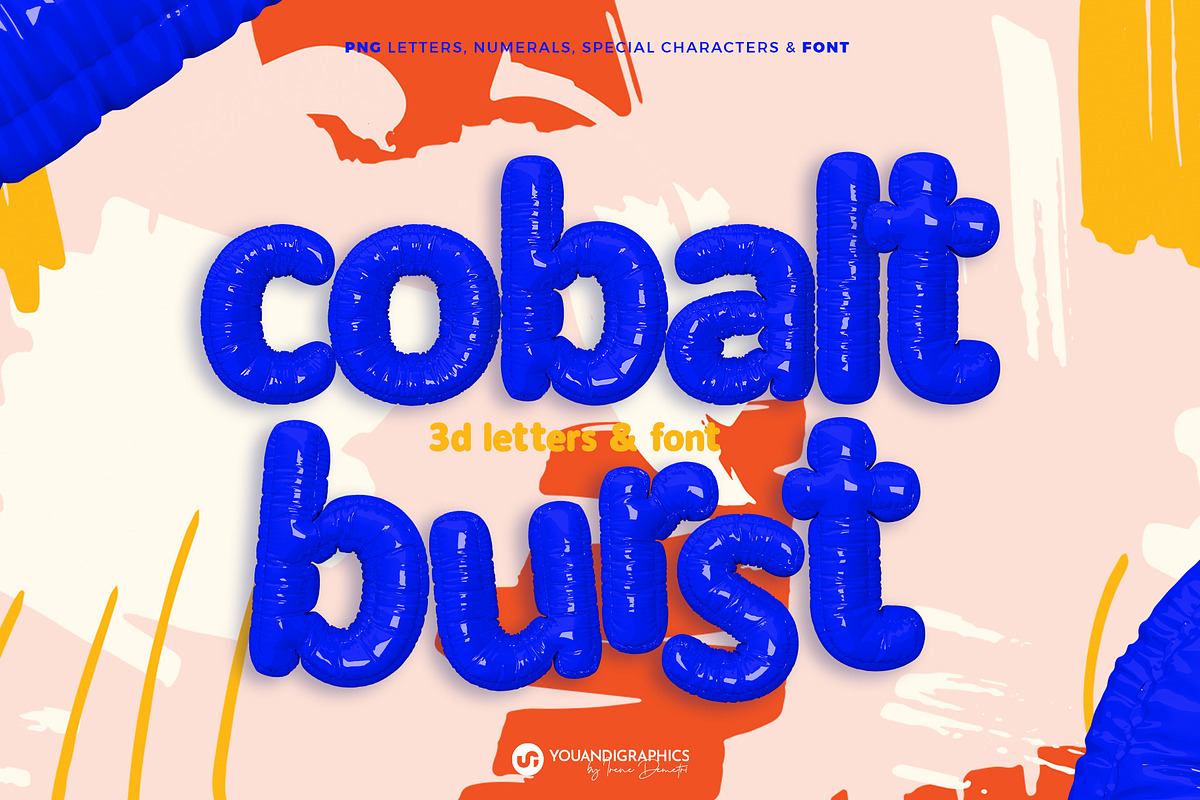
Cobal Burst 3D Letters & Font Free Download
Cobal Burst 3D Letters & Font Free Download is a bold and dynamic typeface that features a striking 3D design, adding depth and dimension to your typography. Perfect for high-impact projects such as posters, logos, video game graphics, event branding, and any design that requires a futuristic, energetic look.
Cobal Burst 3D Letters & Font Free Download brings an exciting, visually powerful style to your typography, making it ideal for projects that need to stand out with a 3D effect. Whether you're designing for an action-packed event, a gaming campaign, or creating bold, eye-catching promotional material, this font will add a burst of creativity and modern flair. Download it today and make your designs pop with the explosive energy of Cobal Burst!